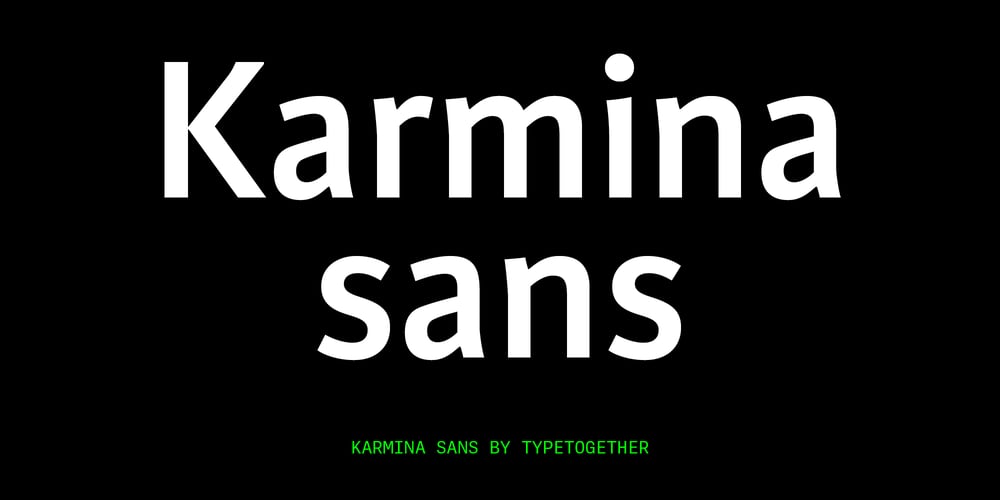
Karmina Sans Font Family was designed by Veronika Burian, José Scaglione and published by TypeTogether. Karmina Sans contains 13 styles and family package options. Karmina Sans follows the steps of its successful award winner cousin, Karmina Serif. It shares the same technical excellence and it achieves similar stylistic features, but the new sans serif version proposes a much more versatile tool for editorial designers. Karmina Sans has six different weights with their matching italics, from light to heavy and from continuous text to headlines to small text. The heavy weight delivers one of the darkest and most powerful impressions out there while the text weights are perfect companions for Karmina Serif. The OpenType Pro package of Karmina Sans includes nearly 900 characters per weight, including small caps, fractions, old style and lining numbers, scientific superior/inferior figures, complete ordinal and inferior alphabet, and a set of symbols and arrows. It supports over 40 languages that use the Latin extended alphabet.